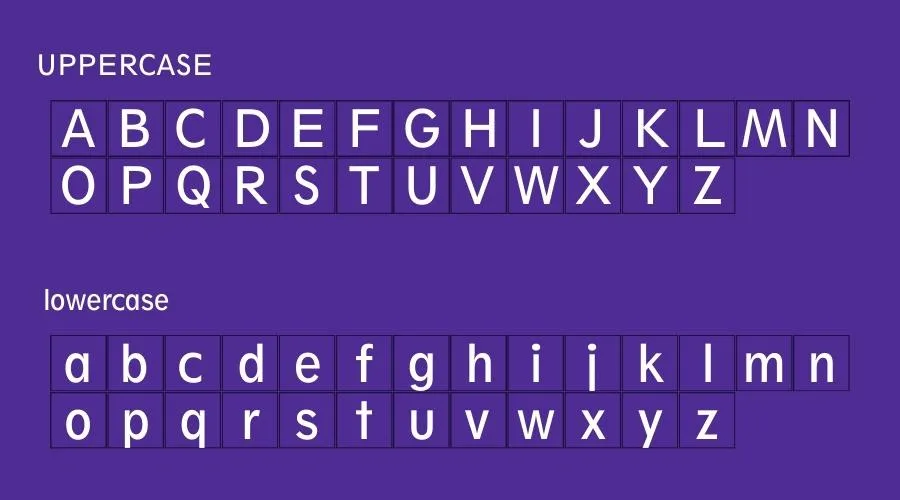
Geometric 212 BT Font
About Geometric 212 BT Font
The Geometric 212 BT Font was designed by a well-known American developer named Bitstream. This font belongs to the category of sans serif font family with a unique texture and the subfamily of this typeface is regular.
This typeface contains a special favor fashion which causes this typeface curiously the use smart notices and symbol plans. The online generator tool of this typeface is perfect for transforming all easy or normal textures into modern characters.
This unique texture has multiple glyphs and a unique nature alphabet set, including small and capital letters, numbers, markings, indications, symbols, punctuation, and many others.
This font has a simple and clean texture look appearance, that will make your project easy to read and understandable. It is a flexible and distinctive texture that may be utilized to construct greeting cards, business cards, birthday cards, and office cards.
This is simple to use with the roboto font to create a mixture of projects. The sans serif typeface family of this font allows for a variety of uses. For all of your creative ideas and projects, including social media posts, banners, posters, logo designs, printings, and numerous other tasks,
it is the ideal option for all your fun plans and processes. If you are a YouTuber, you may use it to make titles, descriptions, and thumbnails for your videos. It has incredible properties that many other sorts don’t have.
Name Geometric 212 BT Font
Designer Bitstream
Style Sans Serif
• Geometric 212 BT Regular
• Geometric 212 BT Bold
Is Geometric 212 BT Font a good font for a website?
It is a reasonable website typeface. It is suitable for headers and titles. And also, you may utilize it for lengthy paragraphs and many more.